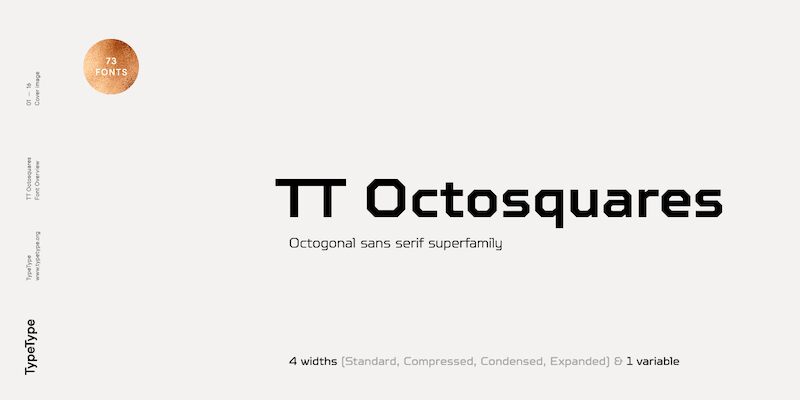
TT Octosquares Trl Cmd Bd It
TT Octosquares Cmd Bd It is a bold, techno display font that exudes confidence and innovation. Designed by TypeType, this ultra-condensed typeface is perfect for projects that require an edgy and futuristic feel. Its sleek lines and sharp angles make it suitable for branding, advertising, and packaging design, as well as video game titles and movie posters. Whether you're looking to add some flare to your website or create a standout logo, TT Octosquares Cmd Bd It will help your project stand out from the crowd with its unique blend of style and substance.